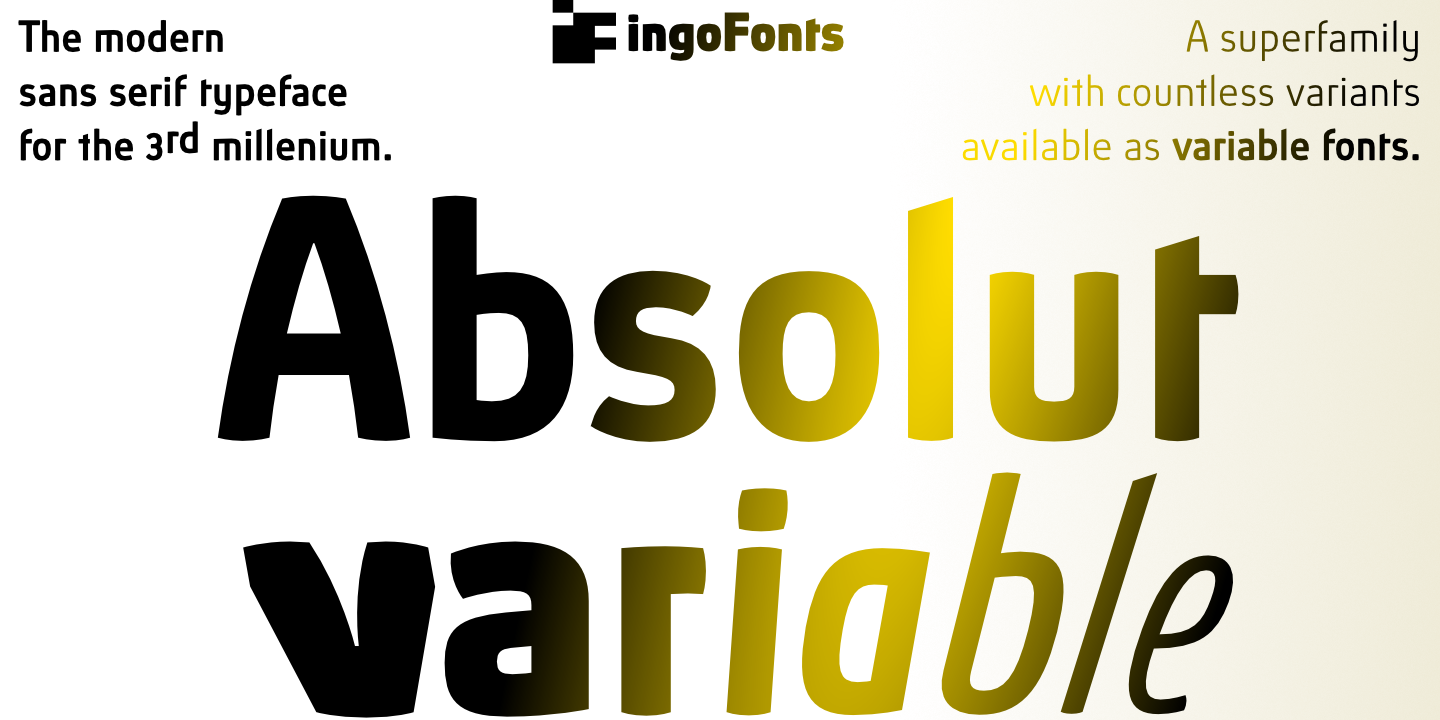
Introducing Absolut Pro Font Free Download – a clean, modern sans-serif that embodies Scandinavian minimalism with flawless functionality. This versatile typeface delivers exceptional clarity and precision, making it ideal for corporate branding, digital interfaces, and editorial design where readability and professionalism are paramount.
Why Absolut Pro Font Stands Out
Absolut Pro Font Free Download offers:
Perfect geometric letterforms
Multiple weights for dynamic hierarchy
Excellent readability in all sizes
Neutral yet distinctive character
Absolut Pro Font Free Download Technical Features:
Extended numerals and punctuation
OpenType features including alternates
Optimized for responsive web design
Professional Applications:
Corporate identity systems
Technical documentation
Financial reports
Luxury packaging
UI/UX design
Design Tip: Use tight letter-spacing for headlines (-10 to -20) and standard spacing for body text!